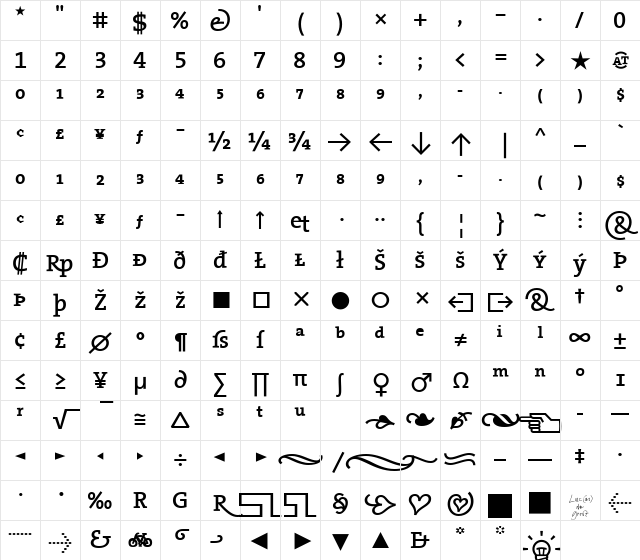
TheSerifExpert-SemiBold Semi Bold
Style: Semi Bold
TheSerifExpert-SemiBold Family
TheSerifExpert-SemiBold Semi Bold
Complete TheSerifExpert-SemiBold Semi Bold glyph index. Displaying only characters natively supported by TheSerifExpert-SemiBold Semi Bold font.
Design Context for TheSerifExpert-SemiBold
TheSerifExpert-SemiBold carries the refined structure of traditional serif typography, with bracketed terminals and considered proportions that communicate credibility and craft. Its bold stroke weight gives it real presence on the page.